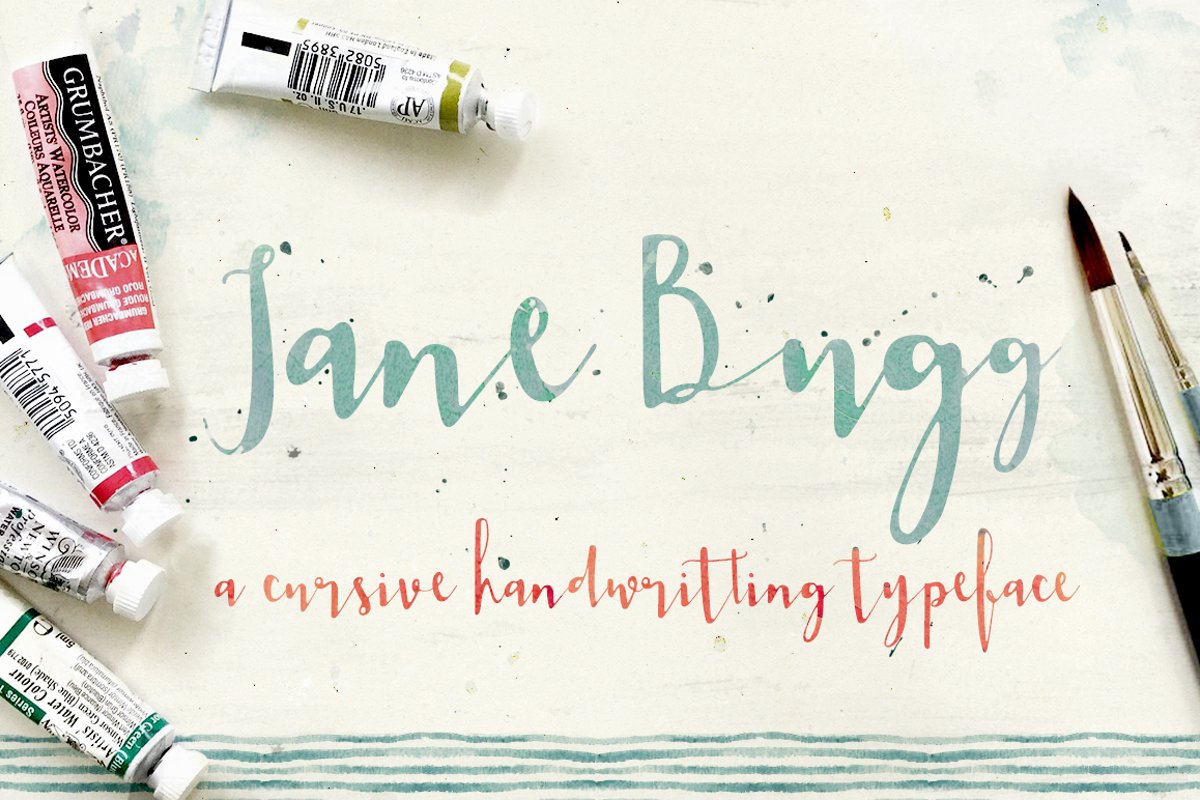
Jane Bugg
Jane Bugg.
Jane Bugg is a neat, brush script type that fits many feminine and elegant design items such as invitation, poster, return address, custom cards, signature, branding work and so on.
Jane Bugg also has the accented glyphs and ligature feature.